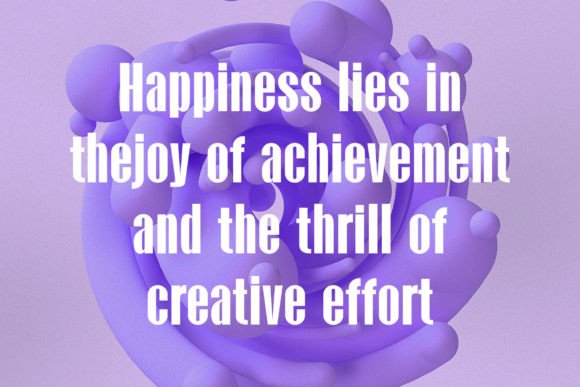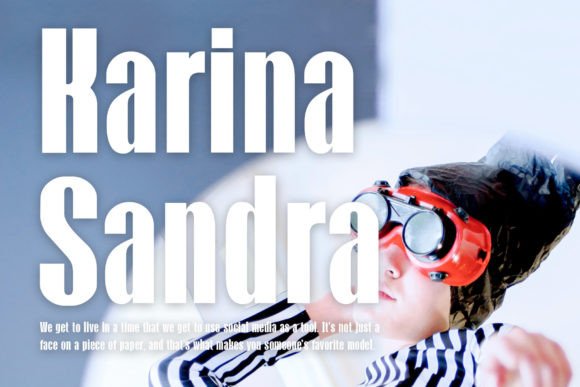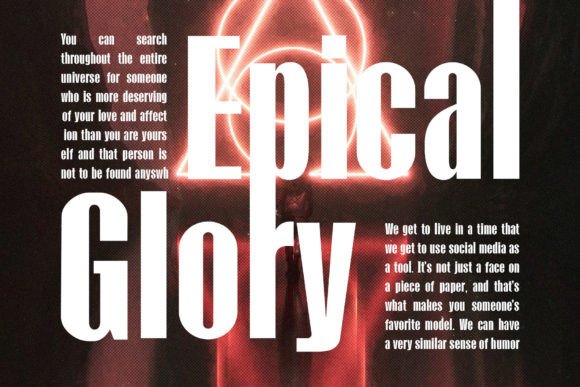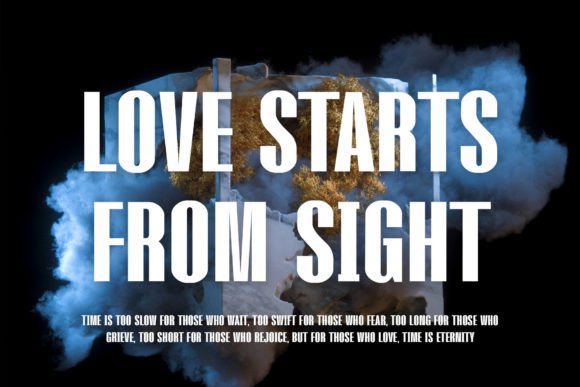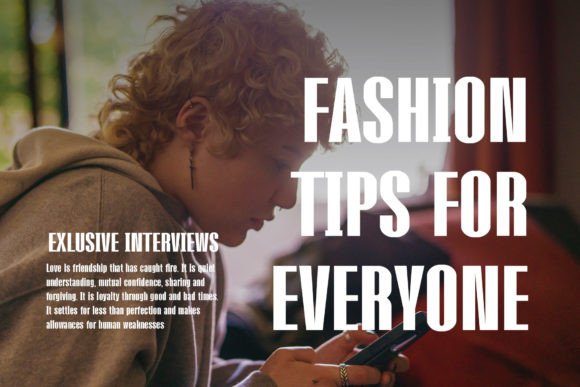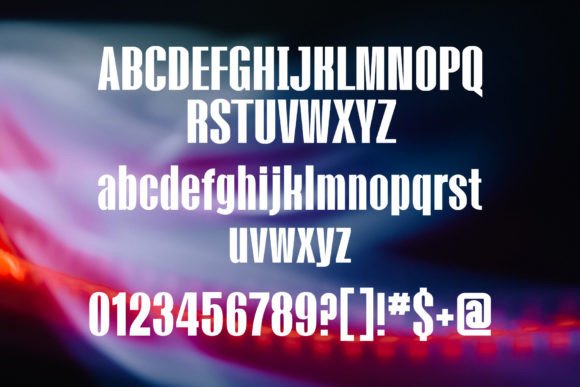
Introduction to Hugest Font
Inspired by the famous minimalist logo, it is perfect for the purposes of designing templates, brochures, videos, advertising branding, logos, invitation, layout design, elegant crafting, beauty design and so much more.
Key Features of Hugest Font